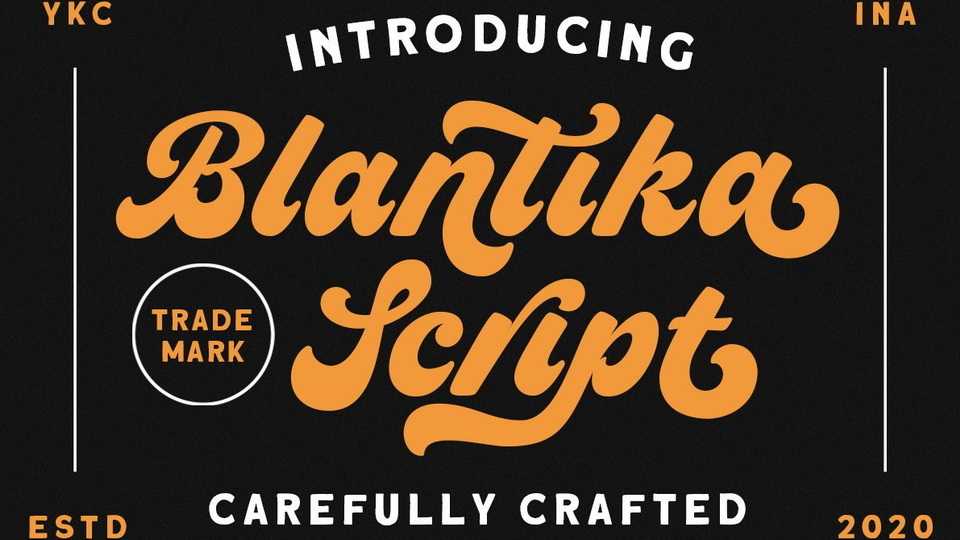
Download Blantika font, a beautiful and bold vintage styled script typeface. Blantika reads as strong, confident, and dynamic and can add tons of nostalgic character to your designs.